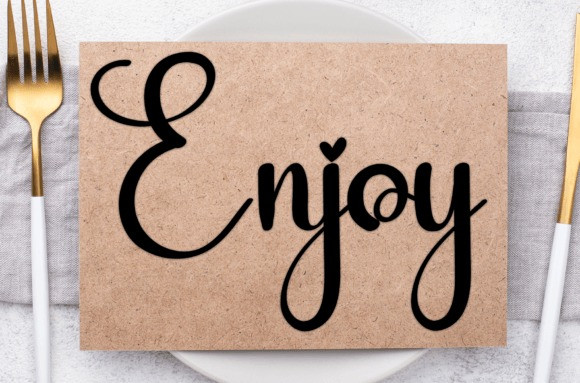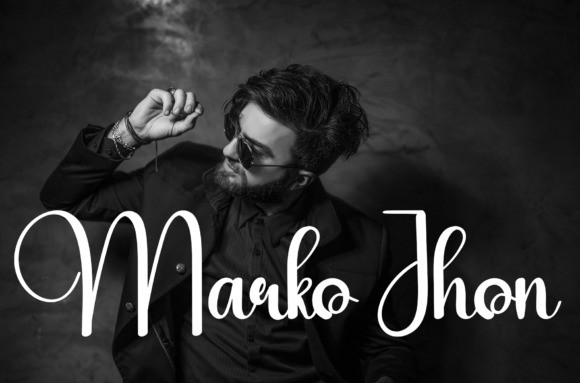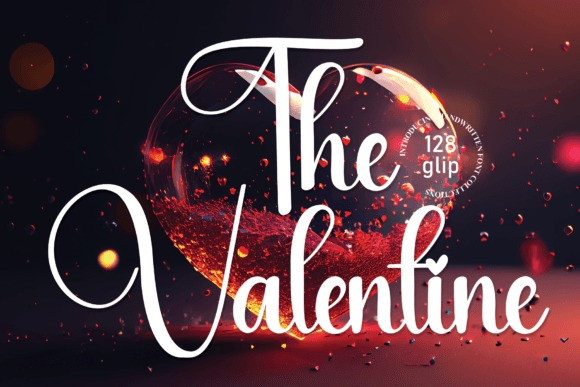
The Valentine Script Typeface
The Valentine Script Typeface, is a sweet and friendly handwritten font. Creative and cute, this font is ideal for writing wedding invitations, cards, or any other design that might need a fun touch!